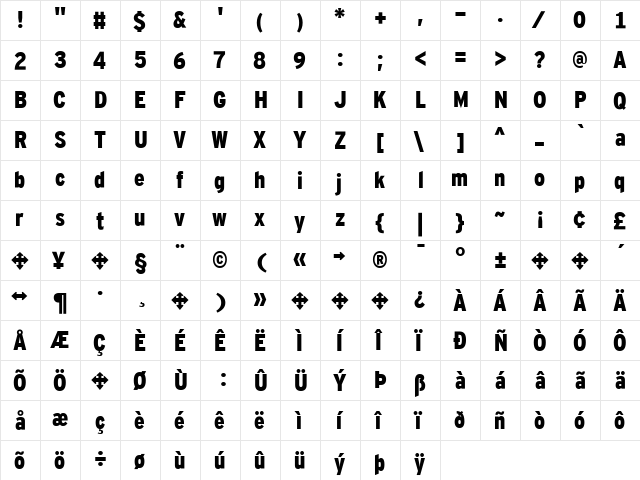
Interstate Cond Mono - Blk Regular
Design Context for Interstate Cond Mono - Blk Typeface
Interstate Cond Mono - Blk uses fixed-width spacing throughout, giving it the structured, systematic character associated with coding environments and technical documentation.
Well-suited to data-driven dashboards, coding tutorials, and any design that wants to reference the world of programming.
Pro Tip: Use Interstate Cond Mono - Blk with slightly increased line-height for extended reading — fixed-width spacing can feel dense in longer passages without extra breathing room.